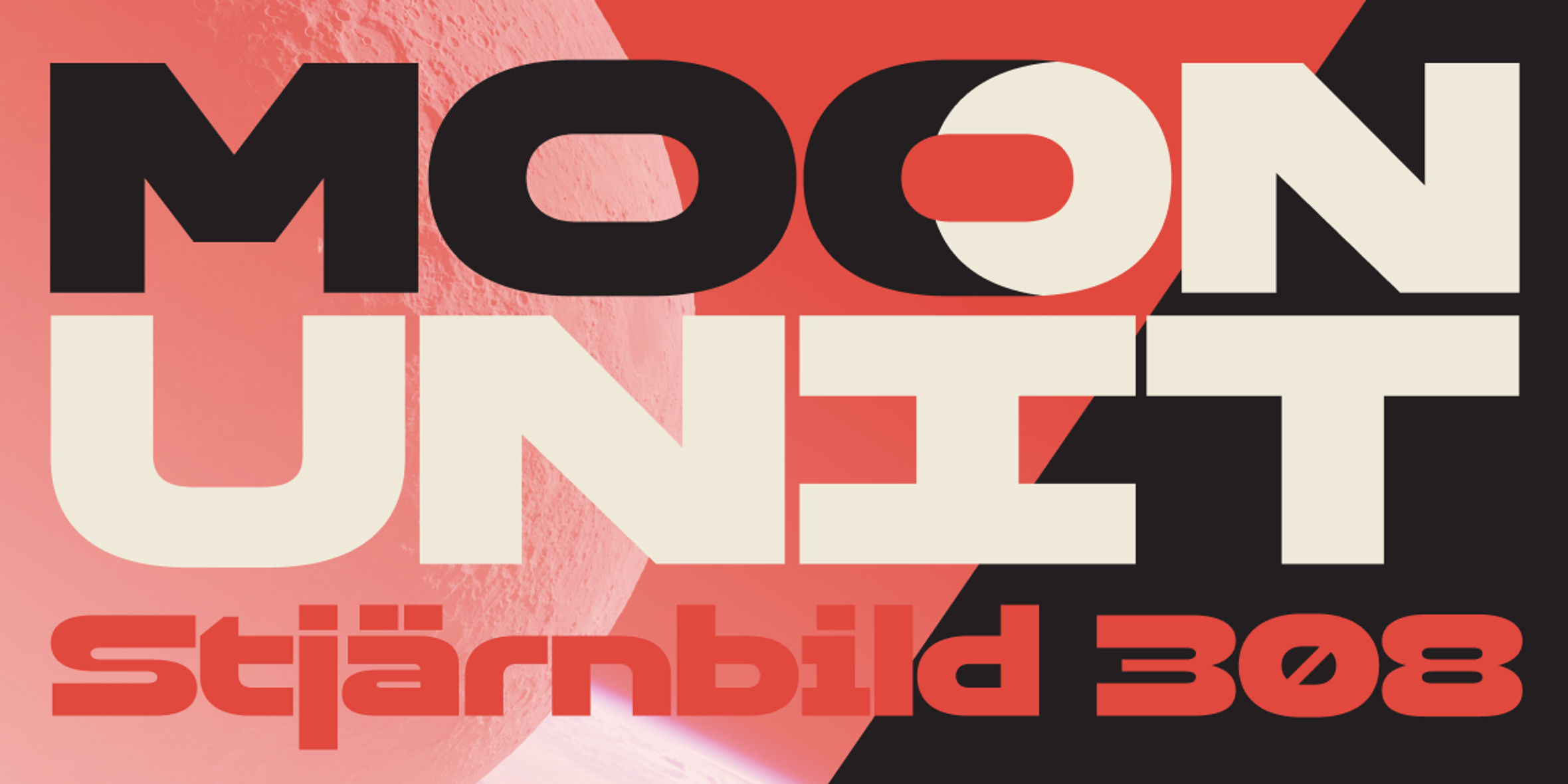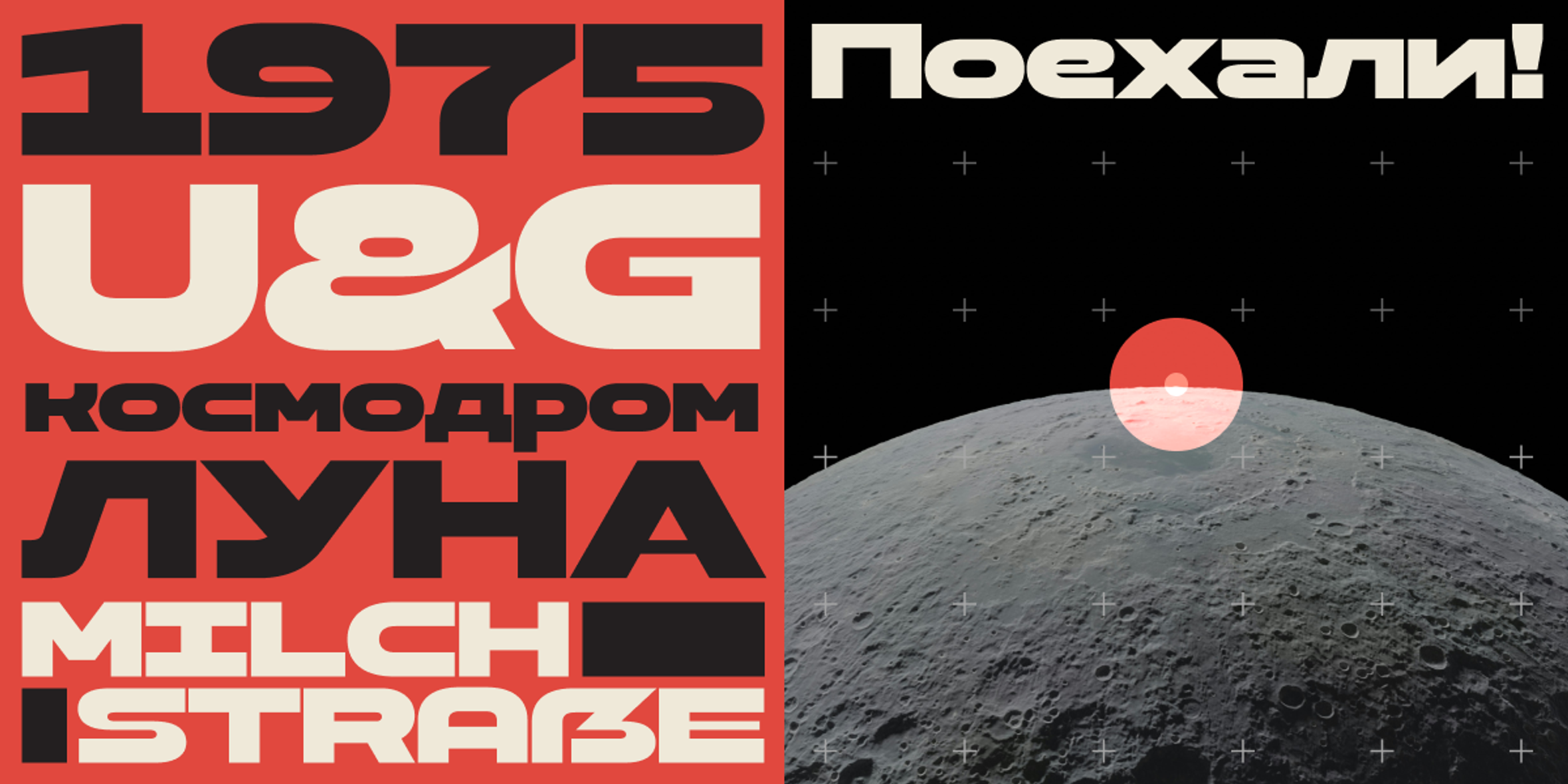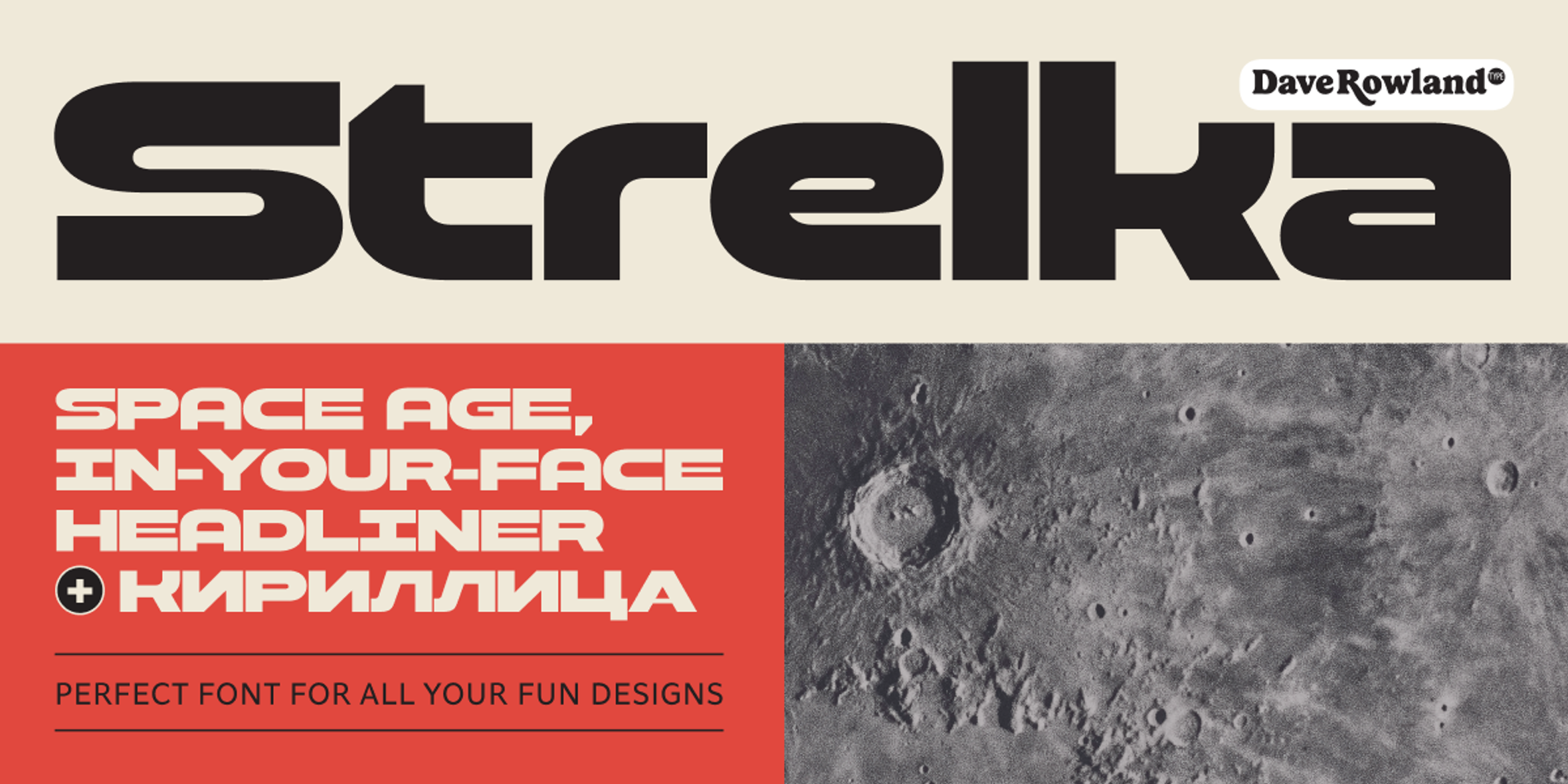
Strelka Font
Strelka is a space-age headliner, perfect for your interplanetary tourism business, spaceport wayfinding systems, other-world films, or a sentient robot army’s corporate identity. For that authentic galactic look, a Cyrillic alphabet was a must. Small Caps and a handful of useful alternates are included for Latin glyphs. Lastly, automatic fractions are available for all your (g)astronomic cookbook needs.
- Belarusian
- Bulgarian
- Macedonian
- Russian
- Serbian
- Ukrainian
- Uzbek
- Common Ligatures
- Fractions
- Small Capitals
- Small Capitals for Capitals
- Stylistic Alternates